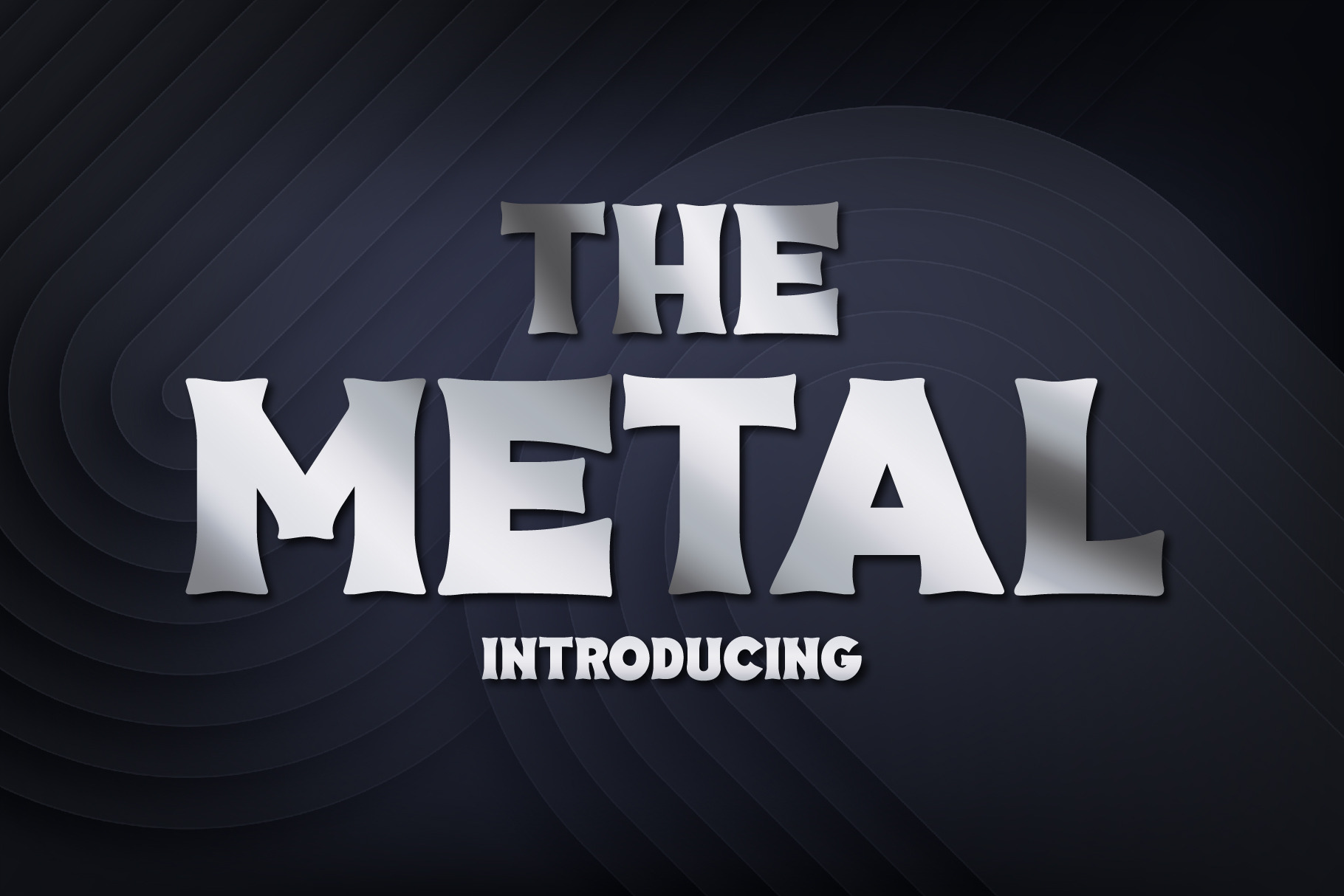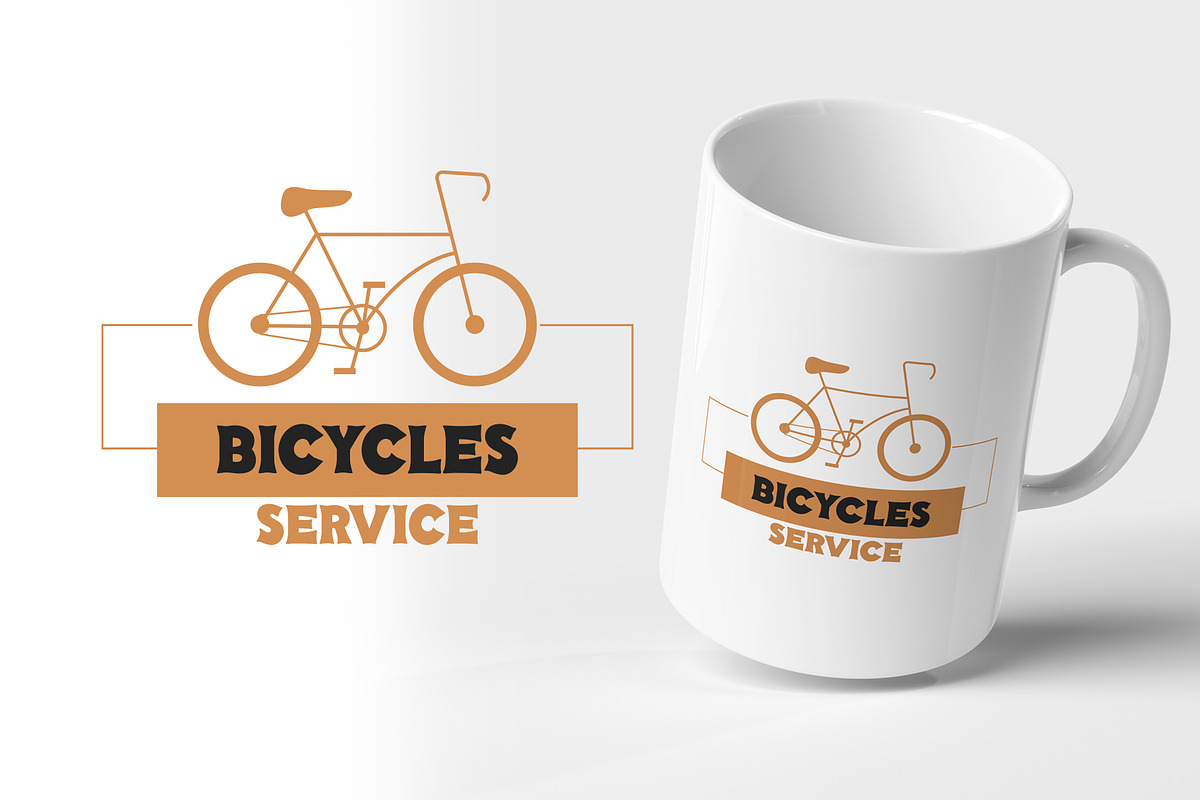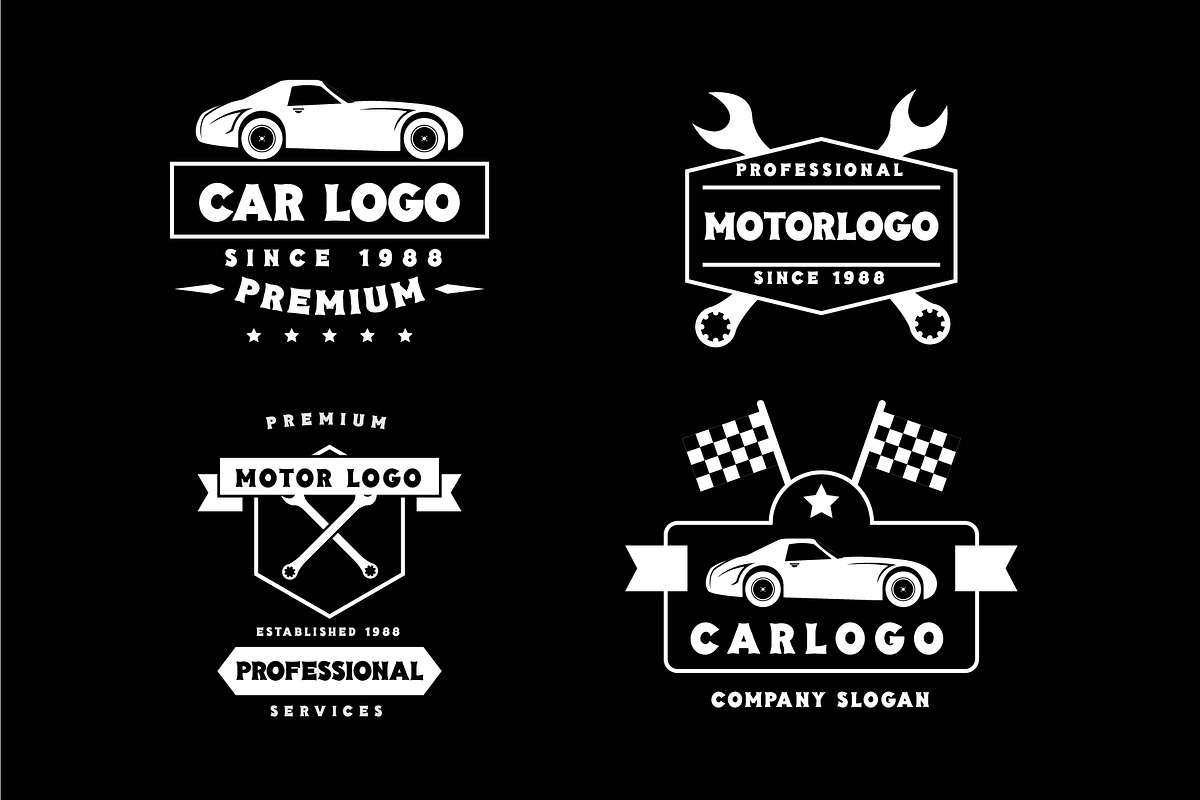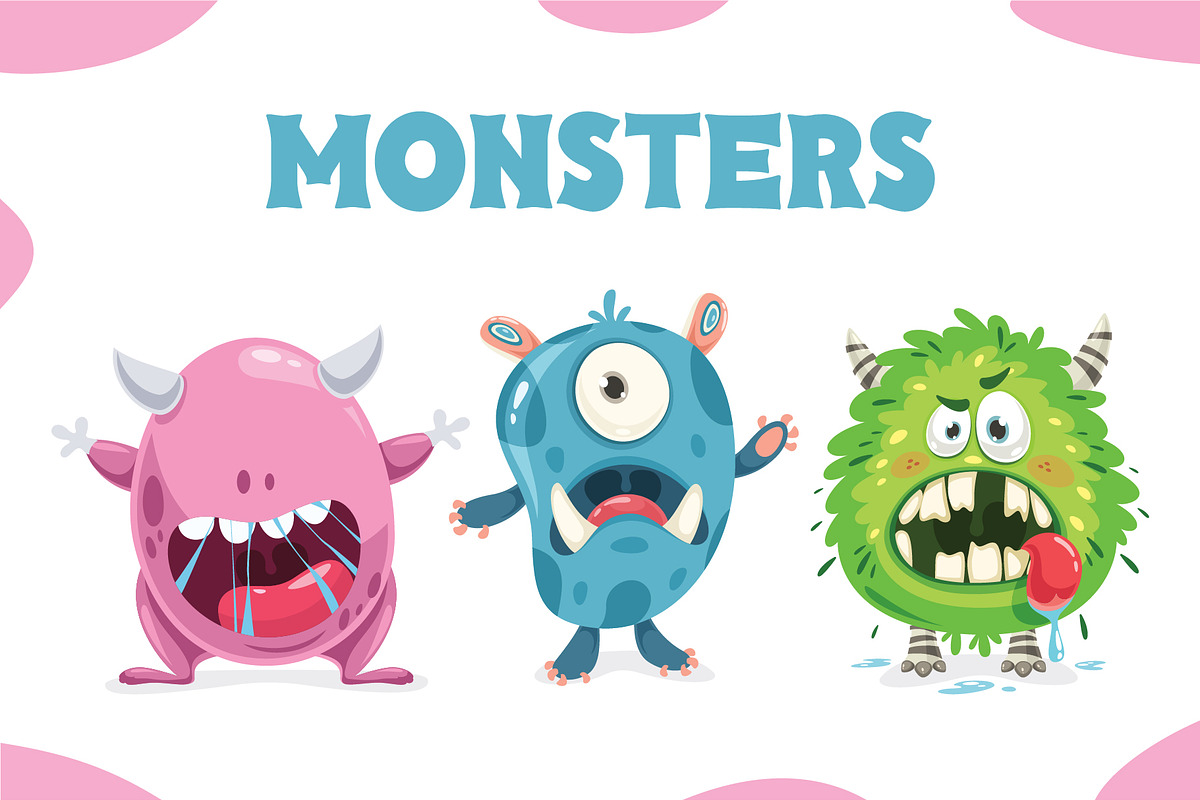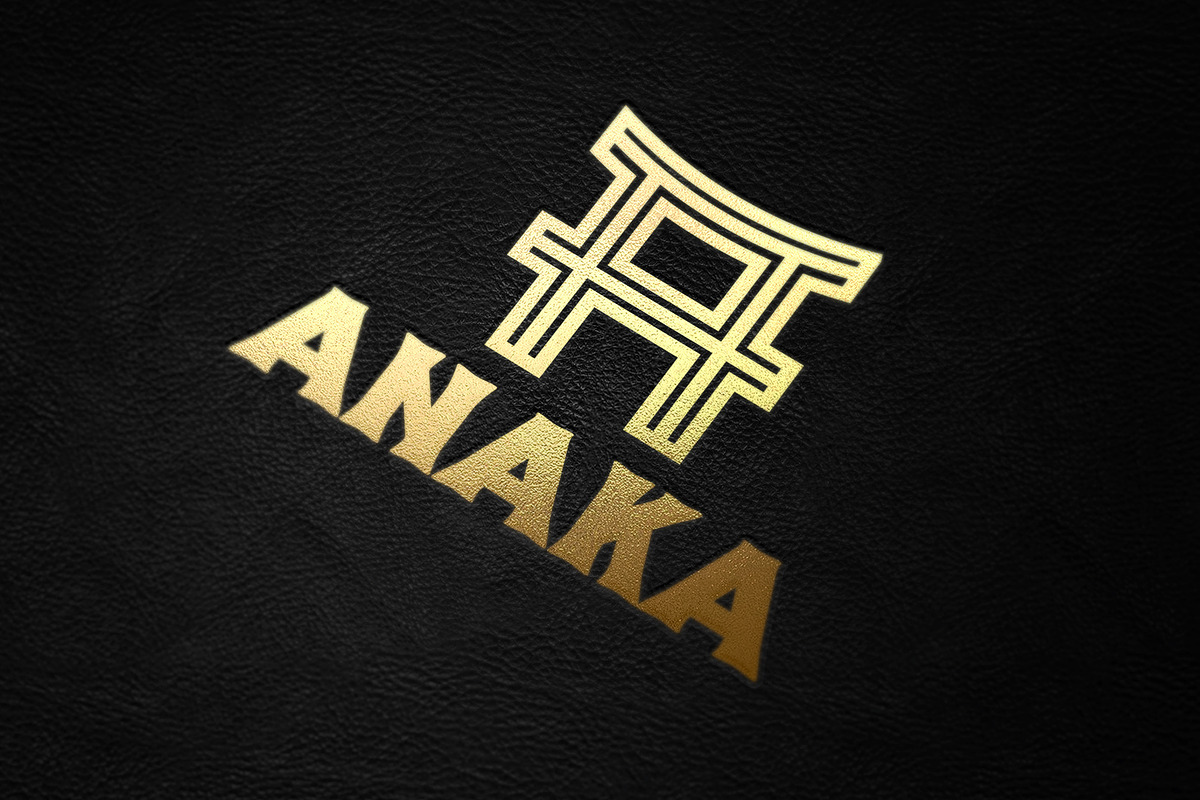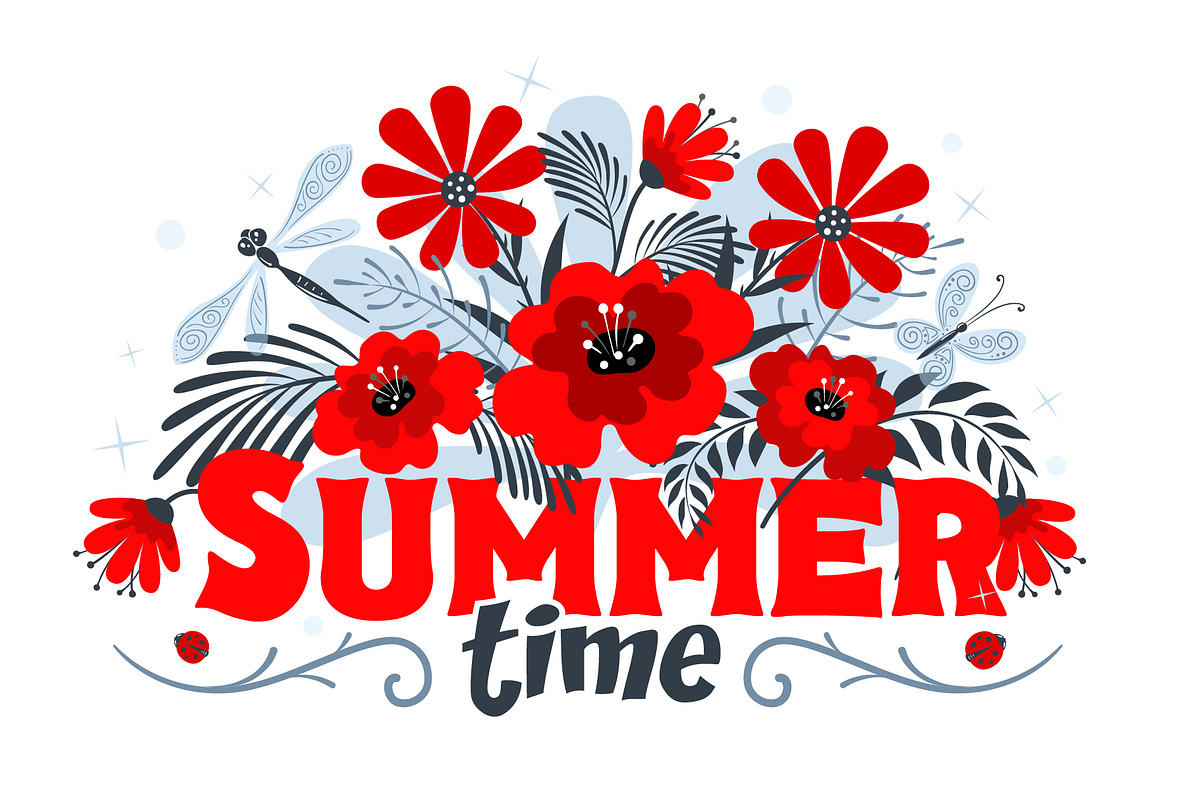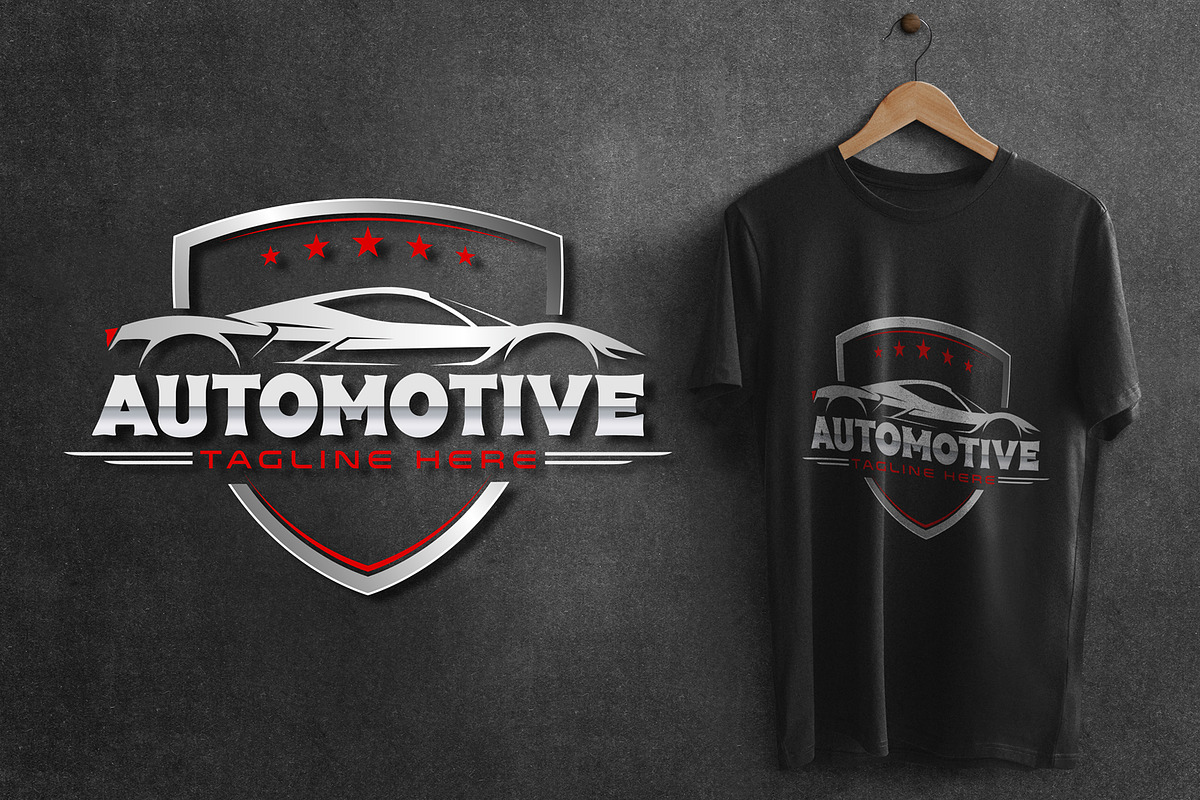
The Metal Font
The Metal is an elegant and stylish vintage slab serif font. This typeface is perfect for elegant and vintage logos, book or movie title designs, fashion brands, magazines, clothes, lettering, quotes, etc. Add this font to your favorite creative ideas and notice how it makes them come alive!